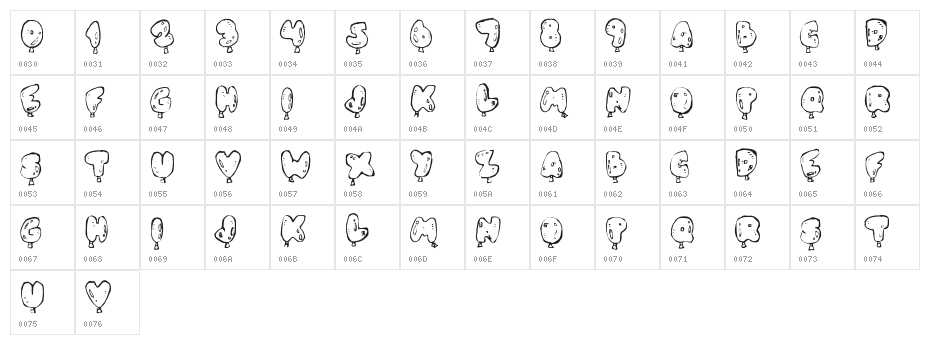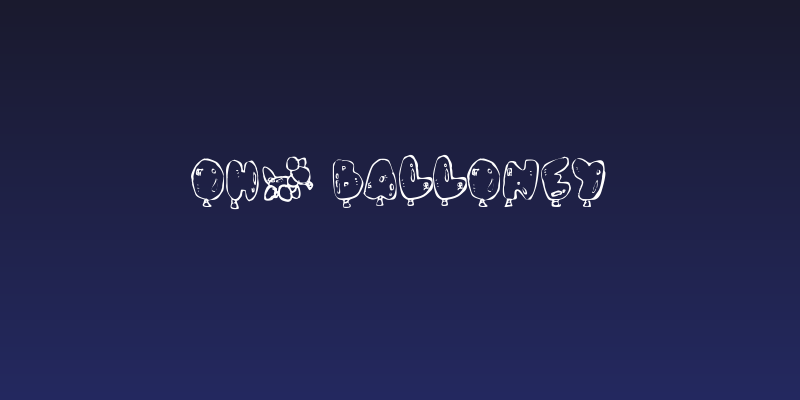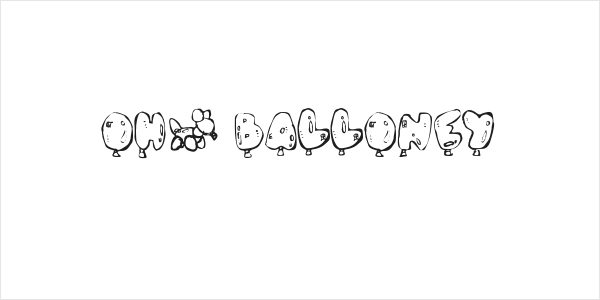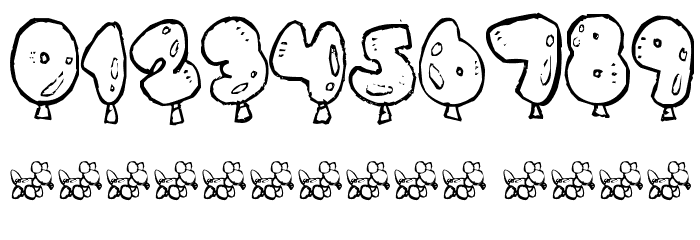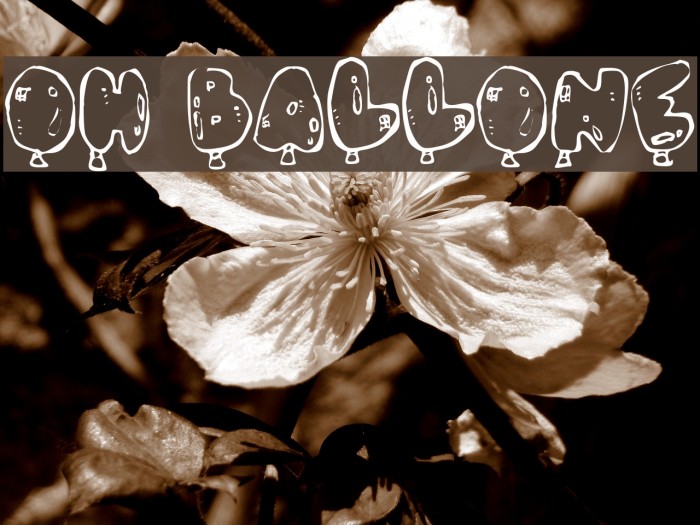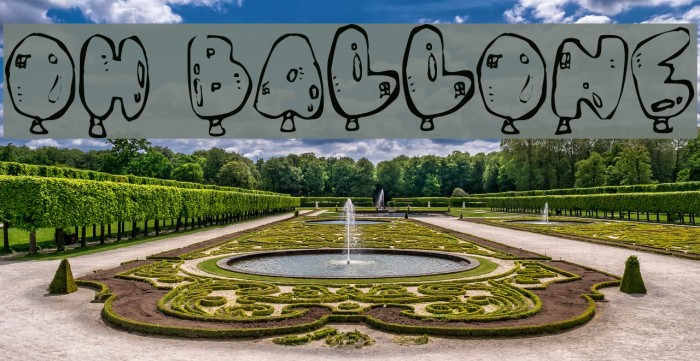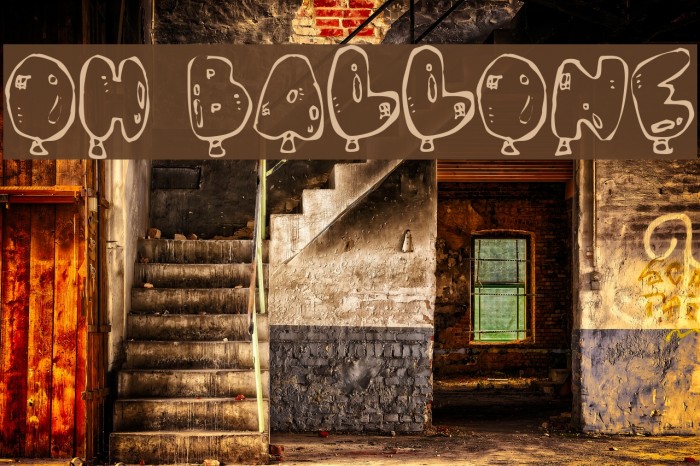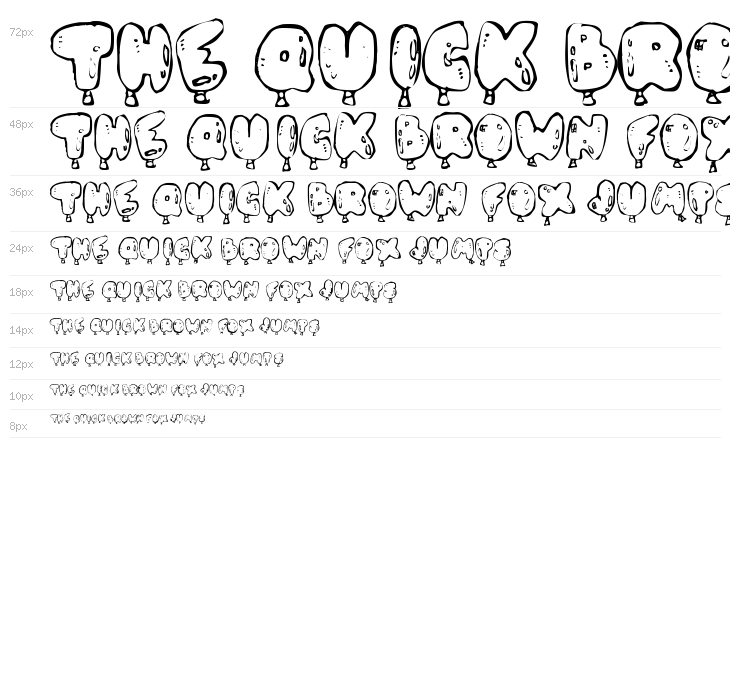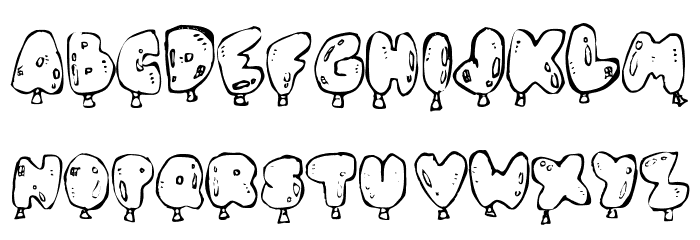
Oh, Balloney Font
Oh, Balloney Description
This playful and whimsical font is designed to resemble inflated balloons, with each character appearing as if it's filled with air. The letters and numbers have a rounded, bubbly appearance, complete with small knots at the bottom, mimicking the tied end of a balloon. The font features a hand-drawn style with irregular outlines and subtle texture details, adding to its charm and uniqueness. It's perfect for creating a fun and lighthearted atmosphere in any design project, making it ideal for children's parties, playful branding, or festive invitations.
| Proposed Projects | Ideal for children's party invitations, playful branding, festive posters, and any project requiring a fun, lighthearted touch. |